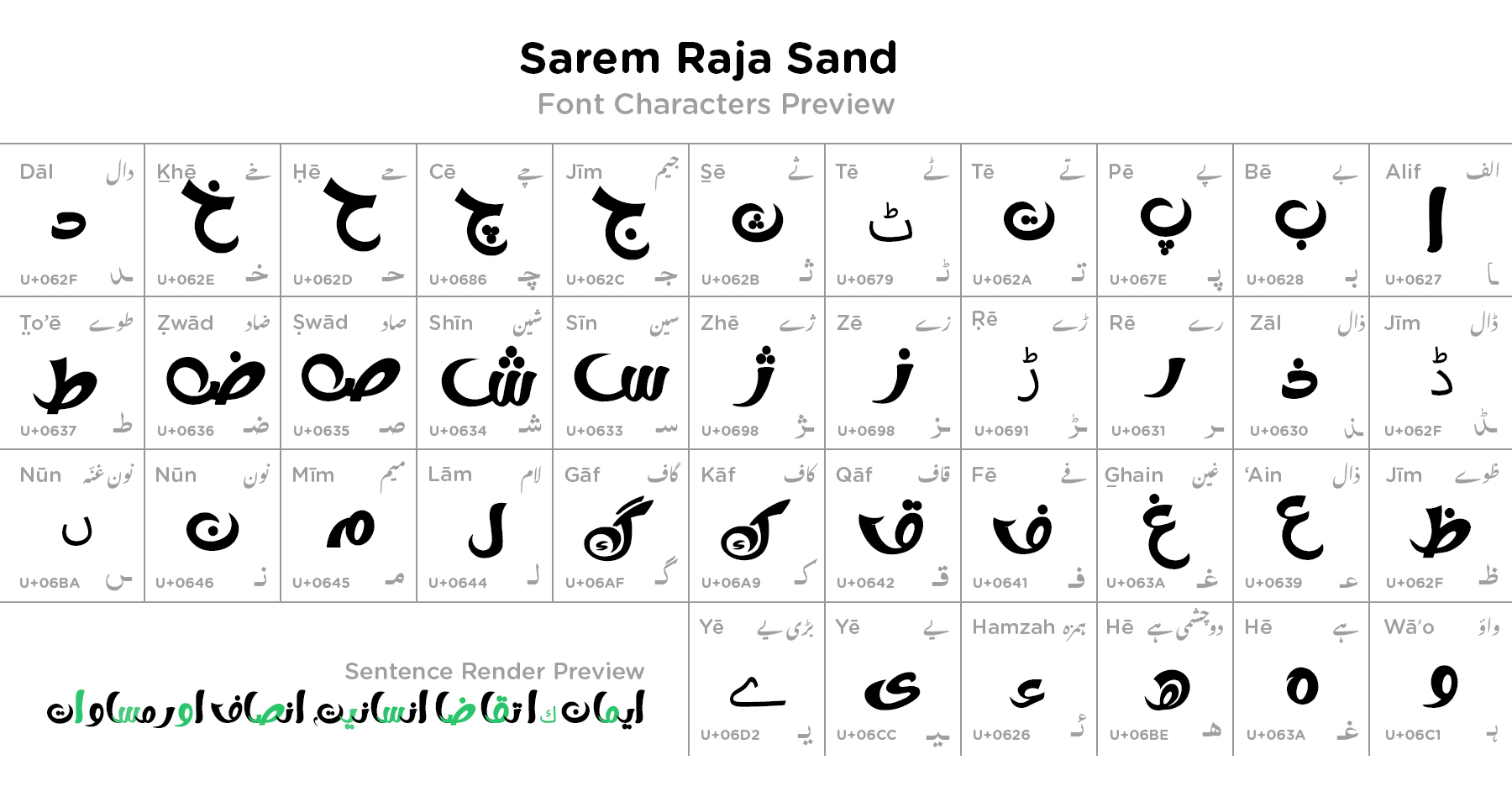
Sarem Raja Sand
Sarem Raja Sand is a decorative Sindhi font designed by Sanaullah Mangnejo Sarem under the manufacturer, Ayesha Graphics. With an extensive character set and glyph count it is a modern interpretation of the Naskh script, with some influences from Thuluth script. While it holds the essential characteristics of Naskh, such as rounded letterforms and horizontal strokes, it also contains certain elements from Thuluth for a more decorative and expressive look. Moreover, other than Sindhi, this unique and whimsical font has support for various regional languages including Urdu, Saraiki, Pashto, and more. The overall style of the font can be described as bold, decorative, and contemporary. The letters of Sarem Raja Sandhave a balance of sharp angles and gentle curves, deviating slightly from the traditionally rounder shapes of Naskh. The strokes have subtle variations in thickness, creating a dynamic and visually interesting texture. The font’s bold nature and decorative elements can grab attention and make headlines stand out. Its unique style can add personality and memorability to logos and branding materials. Also, with the support for the latest Unicode standards, this font can be widely used. However, it is not a linear font; therefore, it would be difficult to read at smaller resolutions, limiting its practicality.